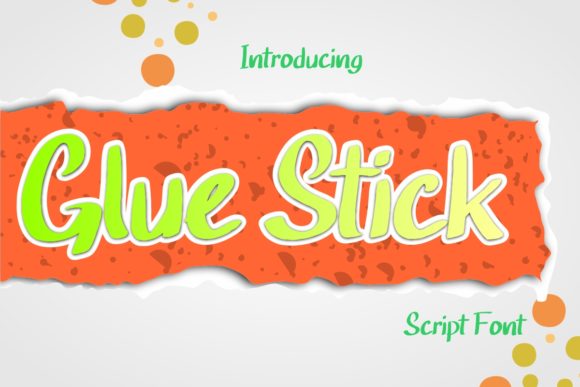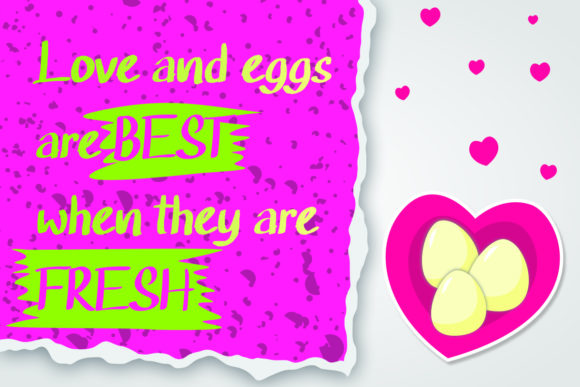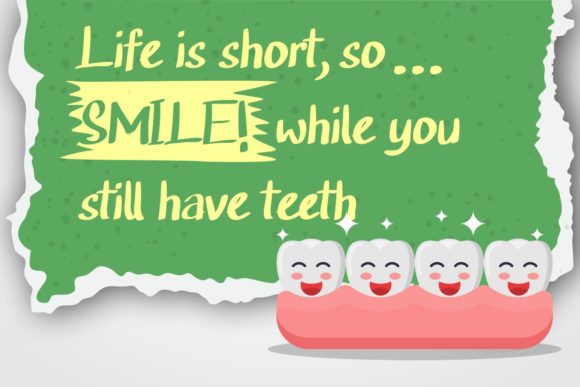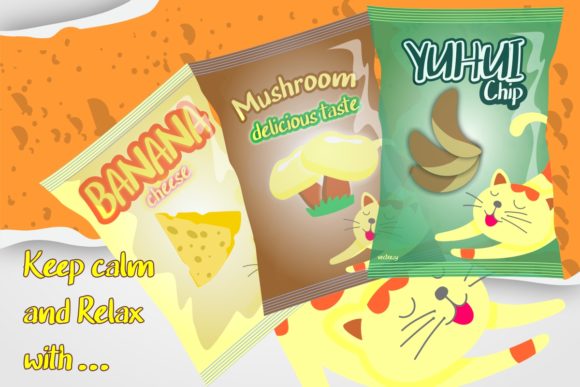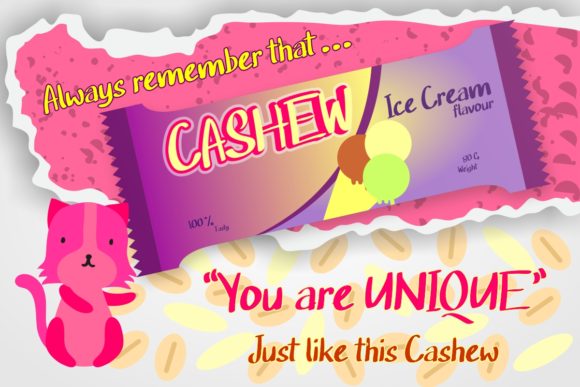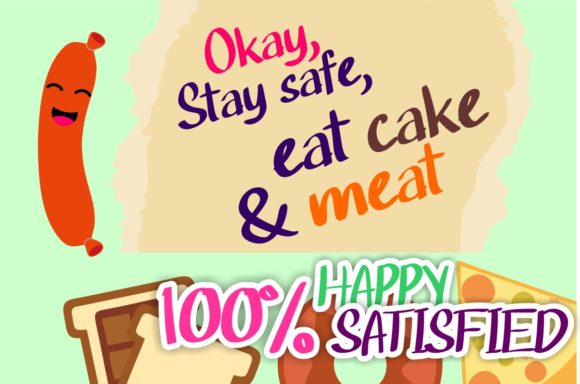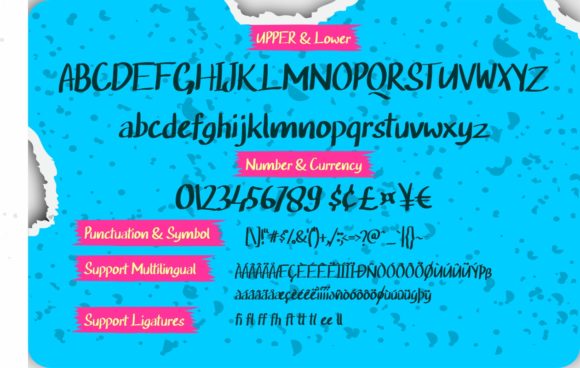
Glue Stick Font
About Glue Stick Font
Glue Stick is a cute and lovely handwritten font, designed to bring more color to your creative ideas. Fall in love with its incredibly versatile style and use it to create spectacular projects!